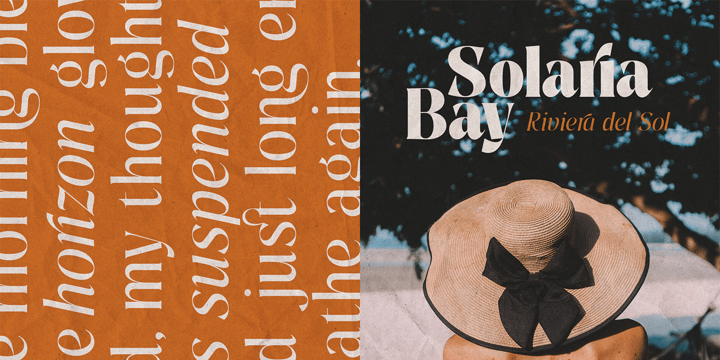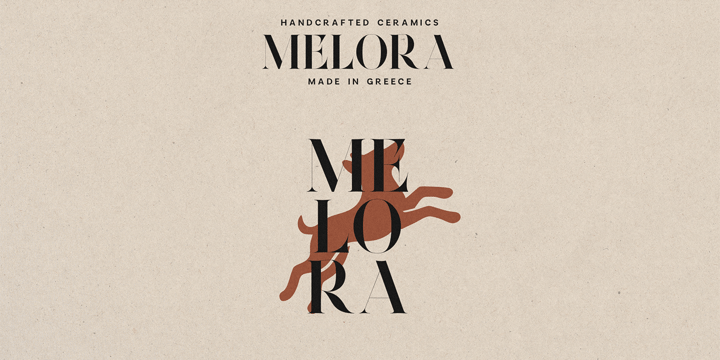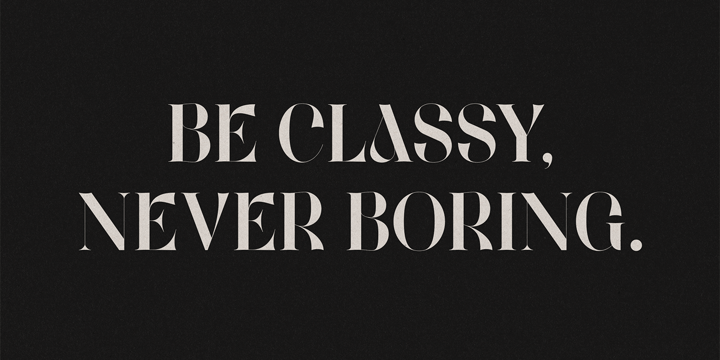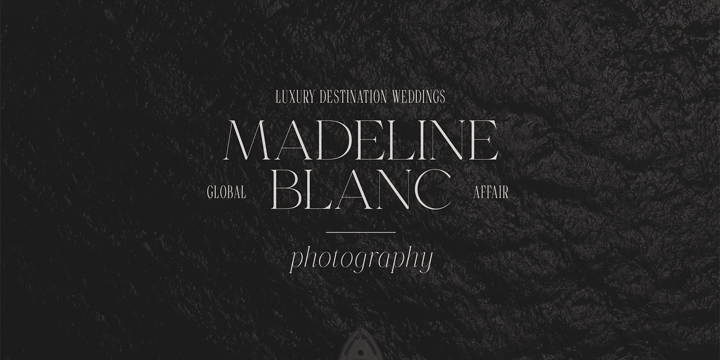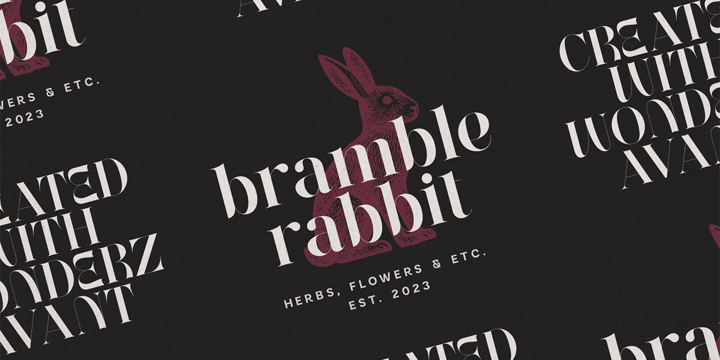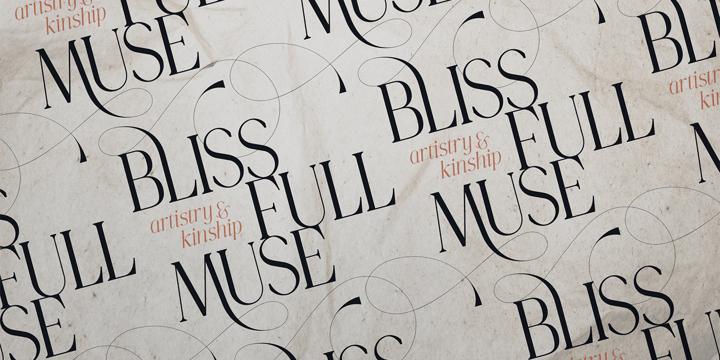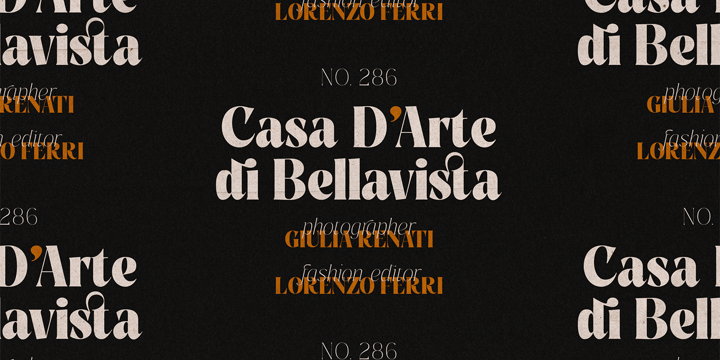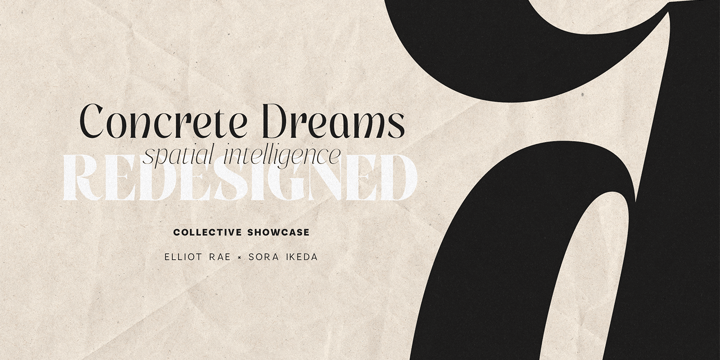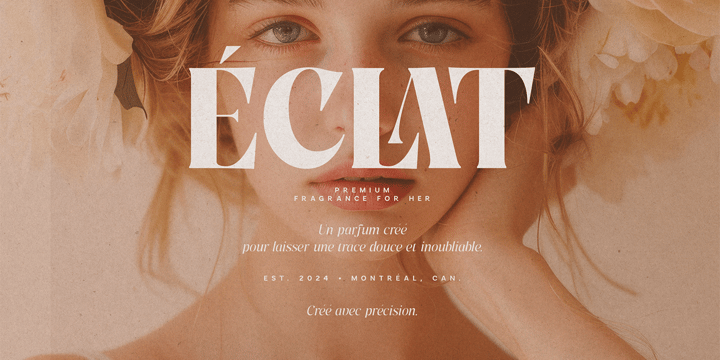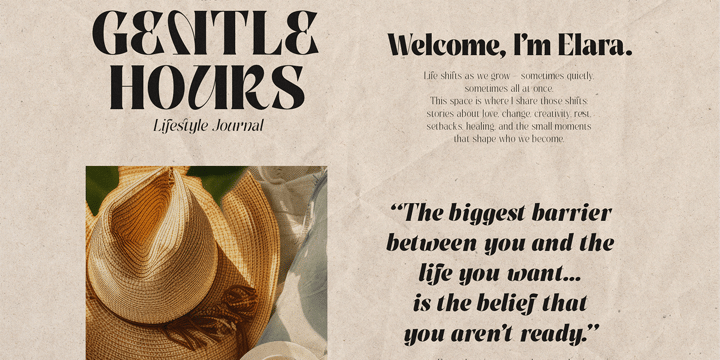
Golden Tales Serif Collection
Golden Tales Serif Collection is a refined trio of serif typefaces - Gorga Type, Wonderz, and Pure Motif - crafted to bring elegance, character, and storytelling into modern design.
This collection blends timeless serif forms with contemporary aesthetics, offering a versatile toolkit for designers who want to create sophisticated and expressive visuals. Each typeface has its own unique voice while working harmoniously together, making it easy to build cohesive and elevated designs.
From high-end editorial layouts to distinctive brand identities, Golden Tales delivers a perfect balance of contrast, softness, and refined details - featuring graceful curves, stylish alternates, and carefully designed ligatures.
Golden Tales Serif Collection is a refined trio of serif typefaces - Gorga Type, Wonderz, and Pure Motif - crafted to bring elegance, character, and storytelling into modern design.
This collection blends timeless serif forms with contemporary aesthetics, offering a versatile toolkit for designers who want to create sophisticated and expressive visuals. Each typeface has its own unique voice while working harmoniously together, making it easy to build cohesive and elevated designs.
From high-end editorial layouts to distinctive brand identities, Golden Tales delivers a perfect balance of contrast, softness, and refined details - featuring graceful curves, stylish alternates, and carefully designed ligatures.